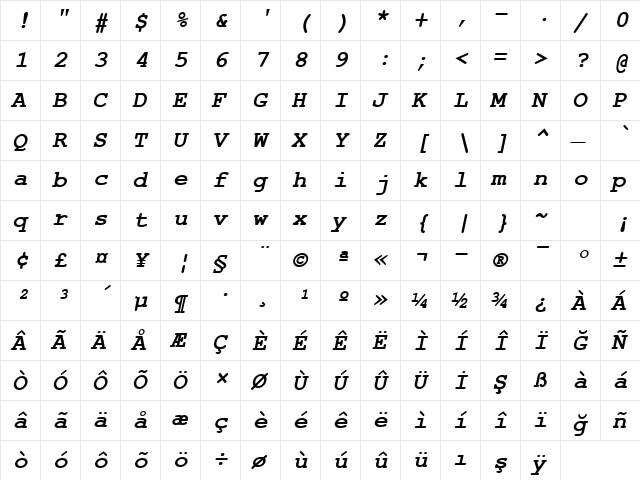
NimbusMonLTU Bold Italic
Design Context for NimbusMonLTU Typeface
NimbusMonLTU offers clean, dependable letterforms without strong stylistic allegiance, making it a practical choice for designers who need flexibility. The slanted form adds forward momentum and visual energy. Its bold stroke weight gives it real presence on the page.
Pro Tip: Try NimbusMonLTU for annotation and caption copy alongside an upright companion — the contrast in angle creates a dynamic but ordered typographic system.